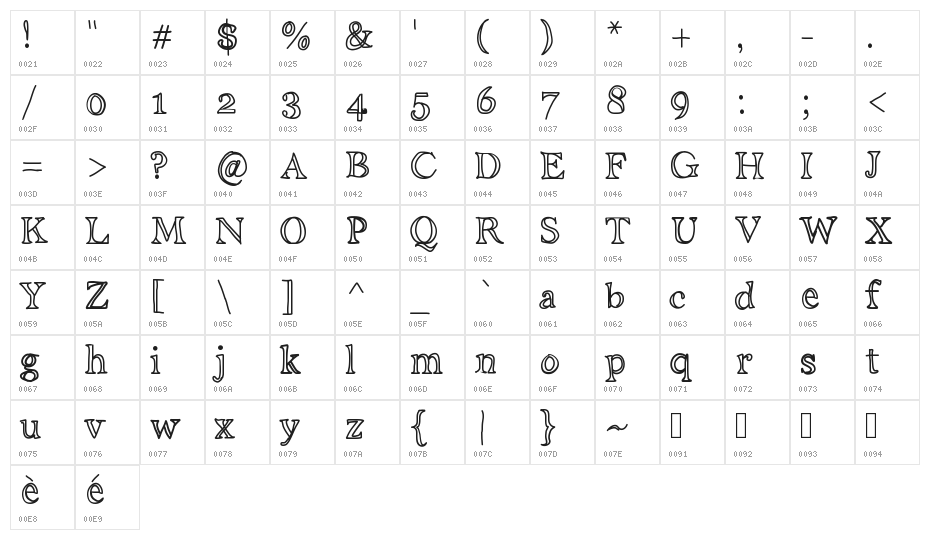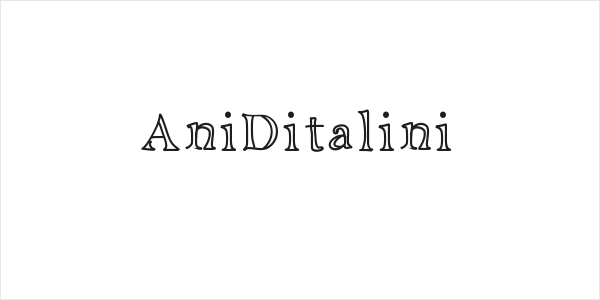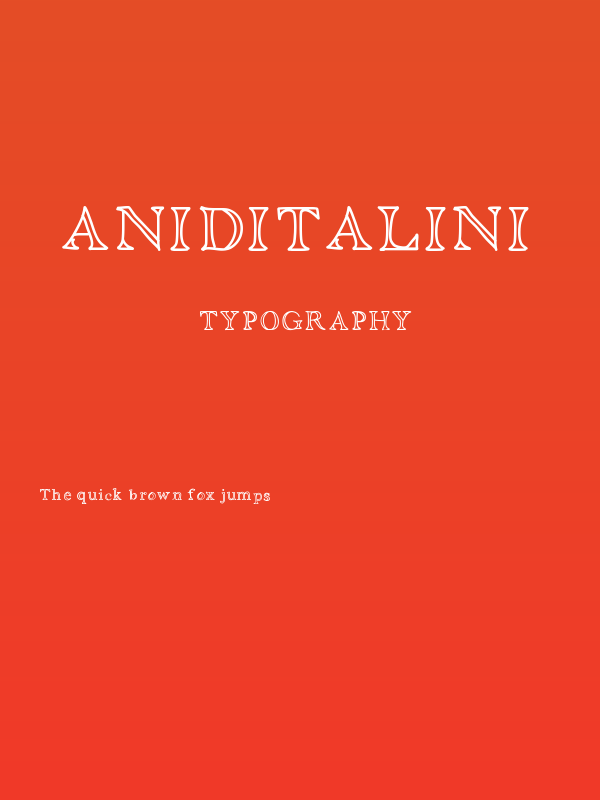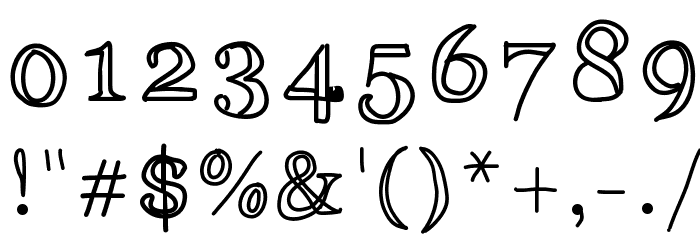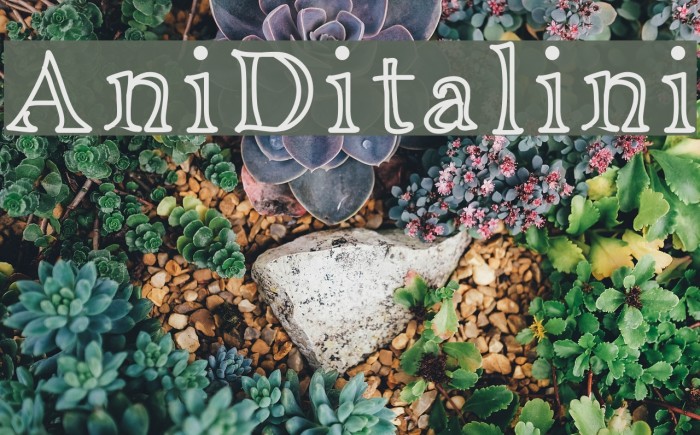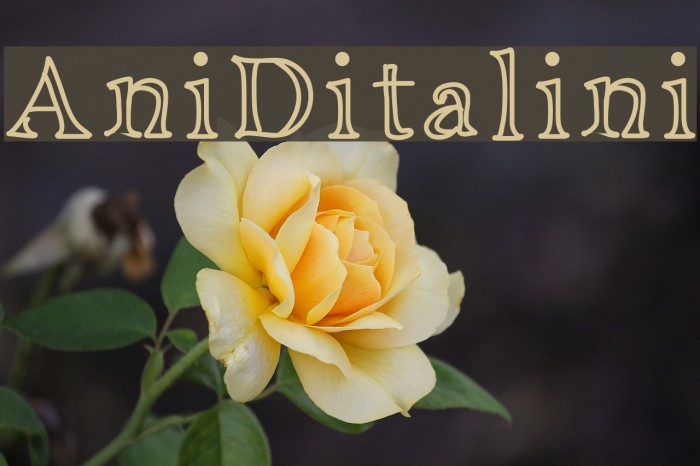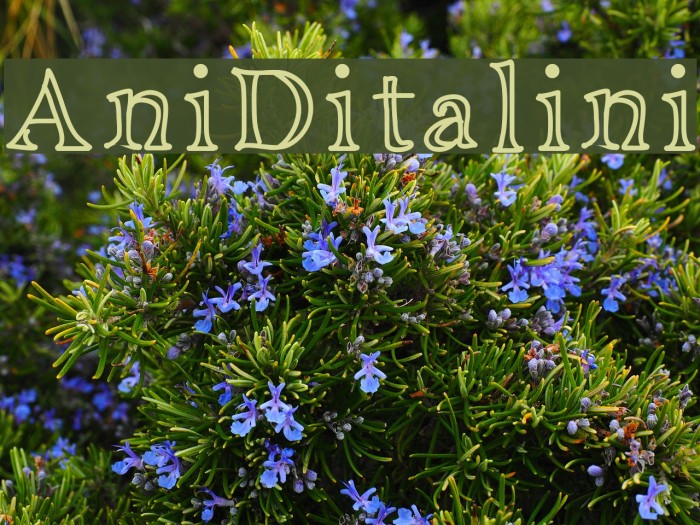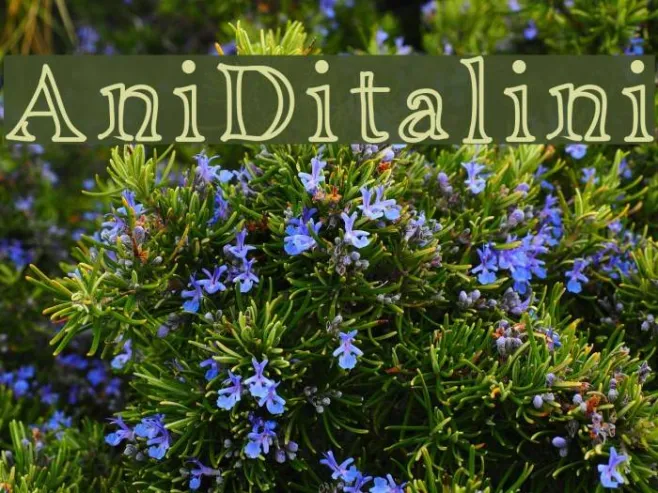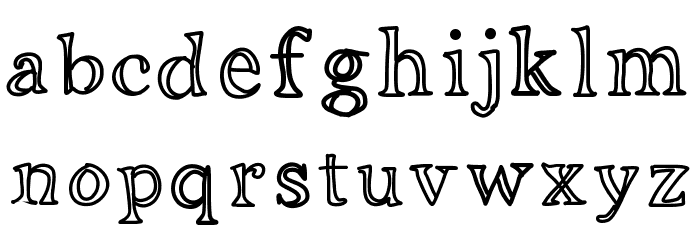
AniDitalini Font
AniDitalini Description
This font features a playful and whimsical design, characterized by its decorative and slightly irregular strokes. The letters have a hand-drawn quality, with varying line thicknesses that add a sense of movement and energy. The uppercase letters are bold and prominent, while the lowercase letters maintain a consistent style with a touch of elegance. The numerals are distinct and easy to read, complementing the overall aesthetic. Special characters are creatively designed, enhancing the font's unique personality. This font is perfect for projects that require a fun and engaging look.
ANIDITALINI UPPERCASE
ANIDITALINI LOWERCASE
ANIDITALINI OTHER CHARS
| Overall Style | Whimsical, Playful |
| Proposed Projects | Ideal for children's books, greeting cards, playful branding, and creative posters. |